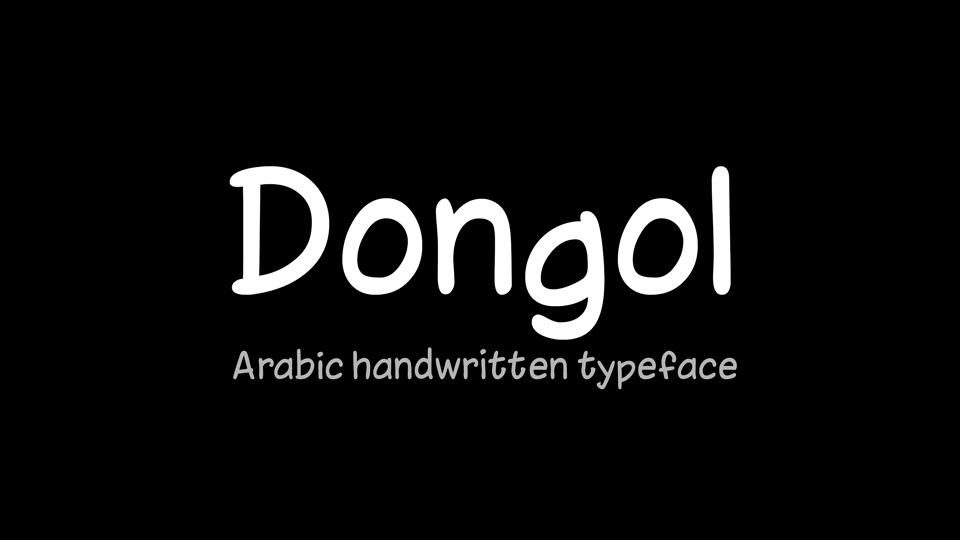
Download Dongol font, a handwritten typeface for comics and other fun uses, inspired by old comic magazines. Dongol font has Arabic and Latin languages support.